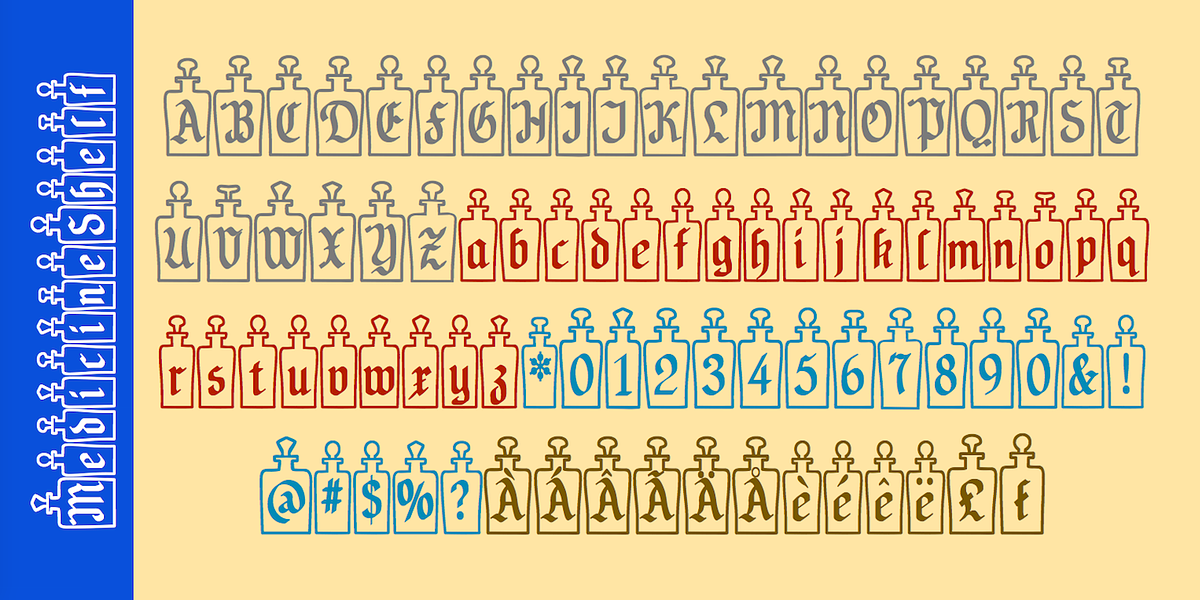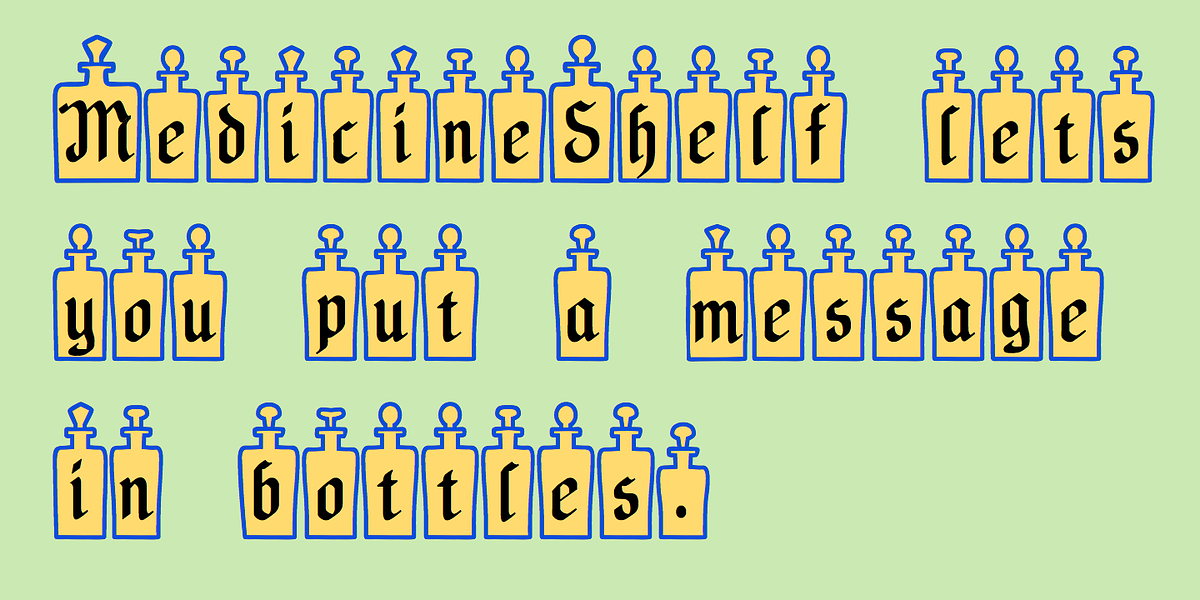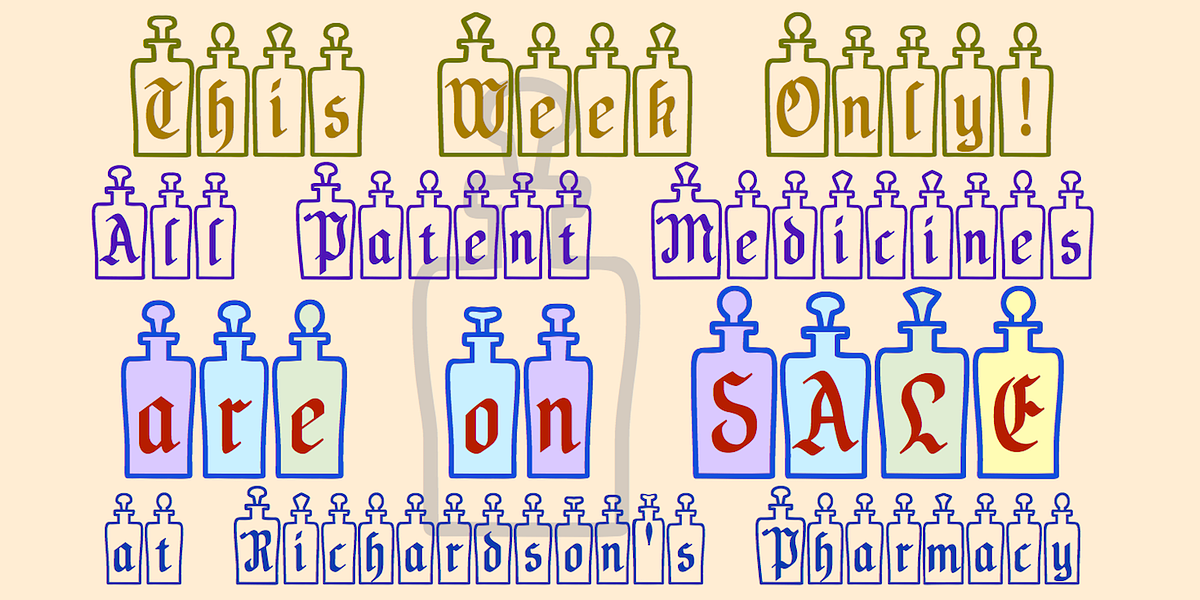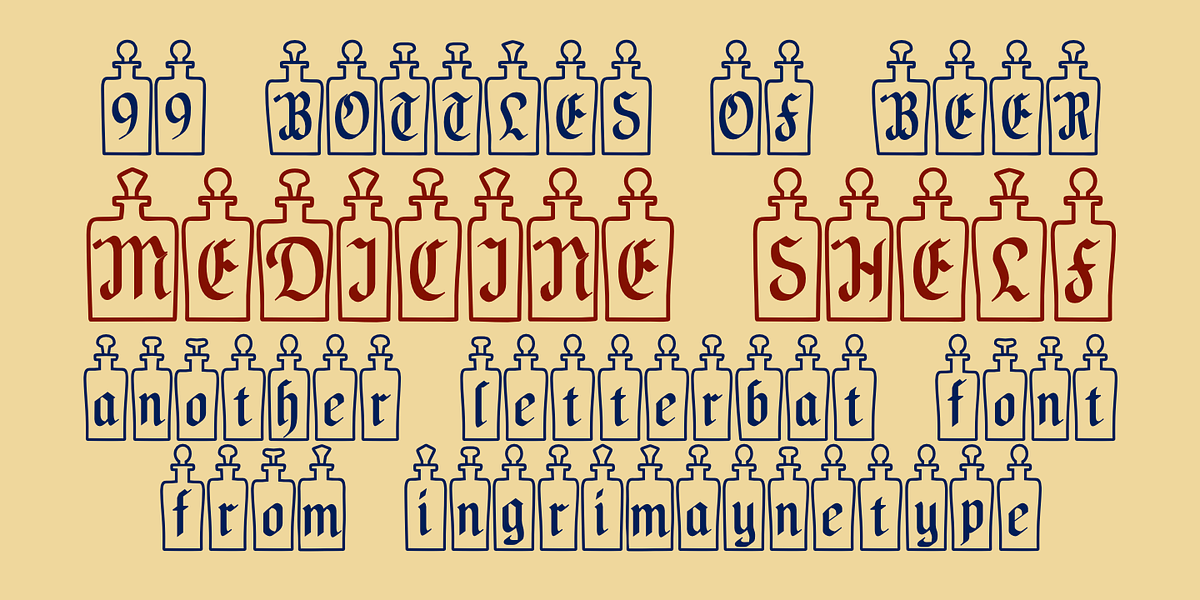
MedicineShelf
MedicineShelf is a novelty blackletter typeface with a vintage aesthetic. Its hand-drawn letters resemble those found on old medicine bottles. The font comes in multiple styles, including MedicineShelf-Blank and MedicineShelf-Outline, designed to be layered for enhanced coloring effects.